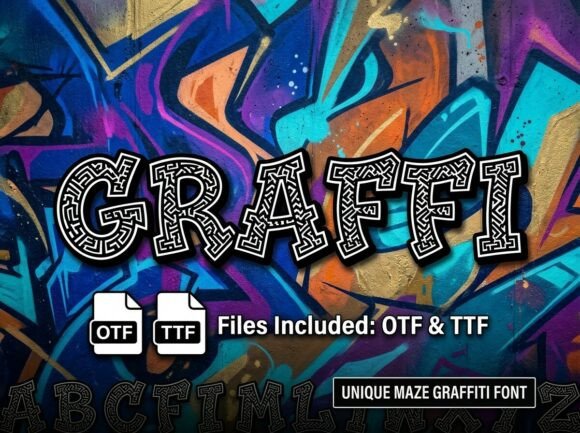
Introduction to Graffi Font
Imagine you’re sifting through a treasure trove of design assets, searching for the perfect font to elevate your next creative project. You’re browsing through a sea of options when suddenly, a bold, eye-catching font catches your eye. Its intricate maze-like structure seems to leap off the screen, beckoning you to explore its unique world. This is what happens when you encounter the Graffi Font – an ultra-stylized, high-contrast display font that’s sure to captivate your audience.
As a valuable design resource, Graffi Font is an outstanding choice for designers looking to add an extra layer of sophistication to their work. Its transparent background and high-contrast geometric pathways create a mesmerizing effect that’s perfect for streetwear brand labels, skate shop merchandise, underground gaming titles, and modern puzzle layout headers. Whether you’re working on a free download or a high-quality commercial project, Graffi Font is sure to make a lasting impression.
Key Features of Graffi Font
- High-quality design resource for creative projects, offering a unique and stylish aesthetic.
- Perfect for use in graphic design, digital art, and other creative projects where a distinctive font is required.
Honest Review: Graffi Font
I recently stumbled upon the Graffi Font, and I must say it’s been a valuable addition to my design resource collection. This font is perfect for creative projects that require a unique and modern touch.
- ✨ High-quality design that looks great on both light and dark backgrounds
- ✨ Transparent background options make it easy to layer and combine with other design elements
One of the standout features of the Graffi Font is its versatility. It’s perfect for a wide range of creative projects, from logos and branding to digital graphics and print materials.
- ⚠️ Limited character set, which may not be suitable for longer blocks of text
- ⚠️ Some users may find the font’s unique style too quirky or overwhelming
Overall, I’m impressed with the Graffi Font and would definitely recommend it to fellow designers. While it may have some limitations, its high-quality design and versatility make it a valuable addition to any design resource collection.
Tips for Getting the Most Out of Graffi Font
For the best results, use Graffi Font in combination with a transparent background to create a high-quality design. You can also experiment with different font sizes and styles to add visual interest to your project.
Graffi Font is perfect for a variety of creative projects, including social media graphics, presentations, and documents. With its high-quality design and transparent background, Graffi Font is a valuable design resource for anyone looking to add a professional touch to their work.